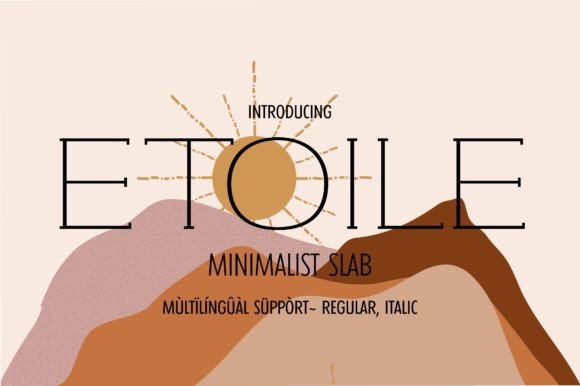
Unleash the Power of Etoile Font: Ignite Your Designs with Elegance and Distinction
In the realm of design, fonts hold the key to unlocking captivating creations that leave an indelible mark on the beholder's mind. Among the myriad of typefaces, Etoile Font stands tall as a shining beacon of elegance and distinction, ready to elevate your designs to new heights of visual allure.
Crafted with meticulous precision by the renowned Minimalistartstudio, Etoile Font embodies the essence of minimalist sophistication. Its wide extended slab serif characters exude an air of understated luxury, striking a perfect balance between classic charm and contemporary flair. The glyphs, meticulously designed and thoughtfully conceived, reflect the studio's commitment to creating fonts that transcend the boundaries of ordinary typography.
Step into the world of Etoile Font and discover a universe of creative possibilities. Its versatility extends across a vast spectrum of design themes, from fashion's glamorous allure to packaging's functional artistry. Unleash your creativity and let Etoile Font adorn your posters, magazine covers, and social media posts with an unmatched grace and poise.
With Etoile Font gracing your design arsenal, you can confidently embark on a journey of astonishing creations. Its elegant lines and refined curves will seamlessly blend into your design vision, elevating each project to a masterpiece of visual eloquence.
Embrace Etoile Font today and unlock the gateway to a world of sophisticated designs, where every stroke of genius leaves an unforgettable impression.